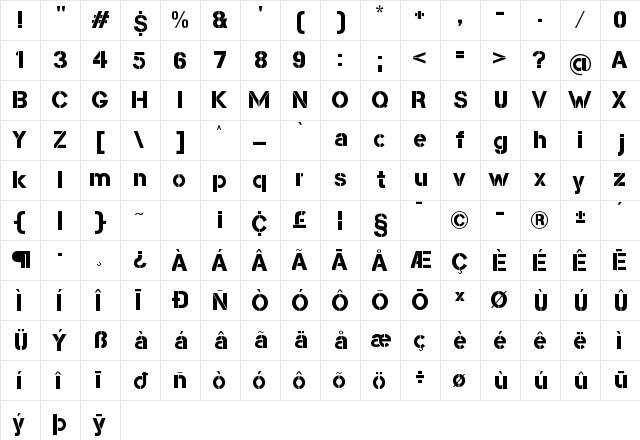
Capture Smallz Clean Regular
Design Context for Capture Smallz Clean Typeface
Capture Smallz Clean is a composed and adaptable typeface that performs quietly and consistently across a wide range of design contexts.